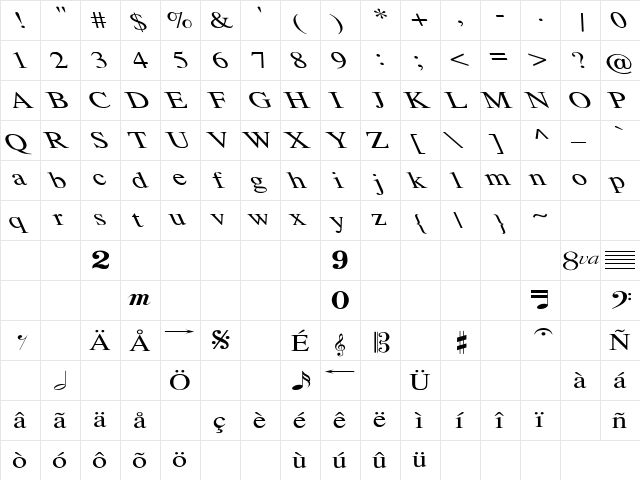
Tempo Font Wd Extreme Lefti Regular
Design Context for Tempo Font Wd Extreme Lefti Typeface
Tempo Font Wd Extreme Lefti offers clean, dependable letterforms without strong stylistic allegiance, making it a practical choice for designers who need flexibility.